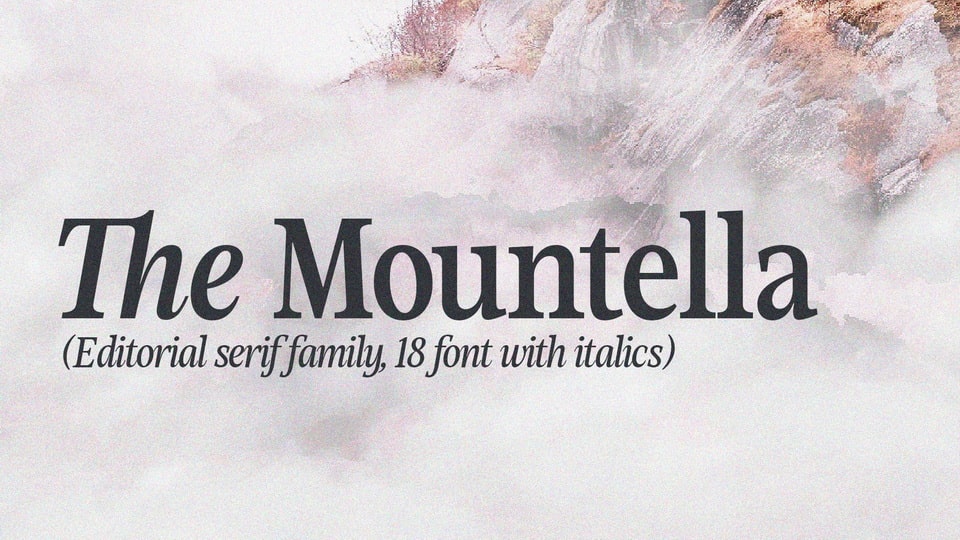
Download Mountella font, a modern editorial serif typeface that includes many visual details, adding uniqueness that looks incredible as a display and body text. Mountella can be used in high-end branding, logo designs, magazines, product packaging and invitations.
Designer: Kereatype Studio